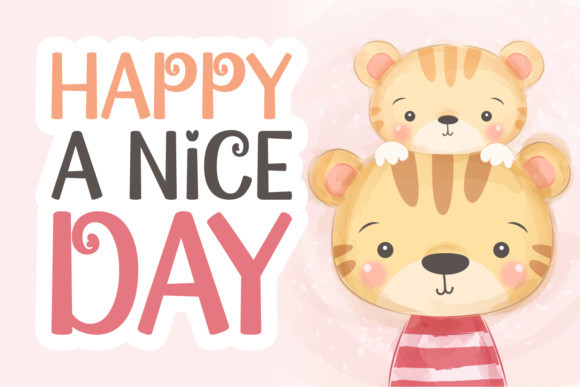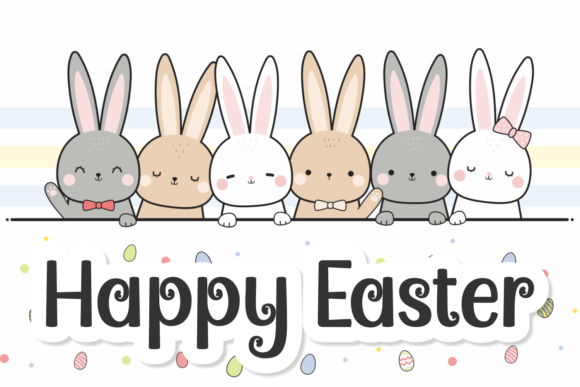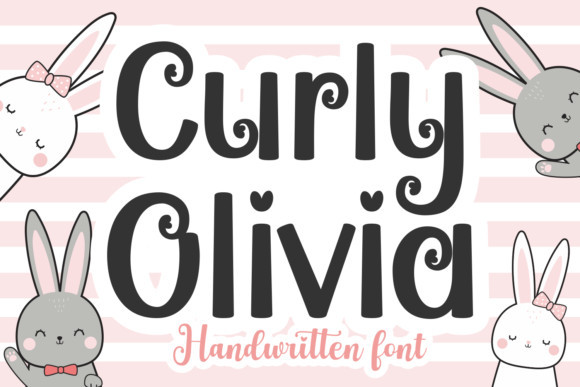
Curly Olivia Font
Curly Olivia Font is a friendly and cute handwritten font. Grab this curly and fancy font and create children-themed designs, Easter cards, posters, quotes, wall art, birthday cards, stickers, art prints, t-shirts, and more.